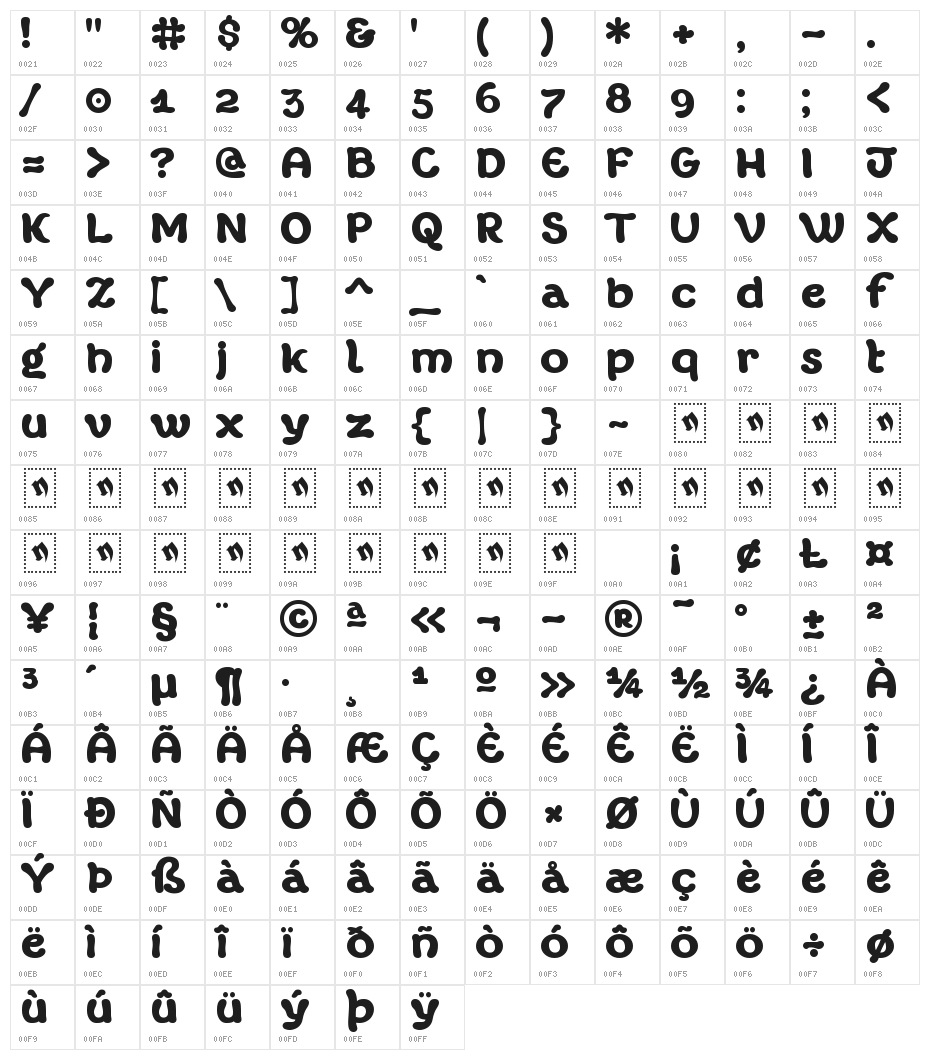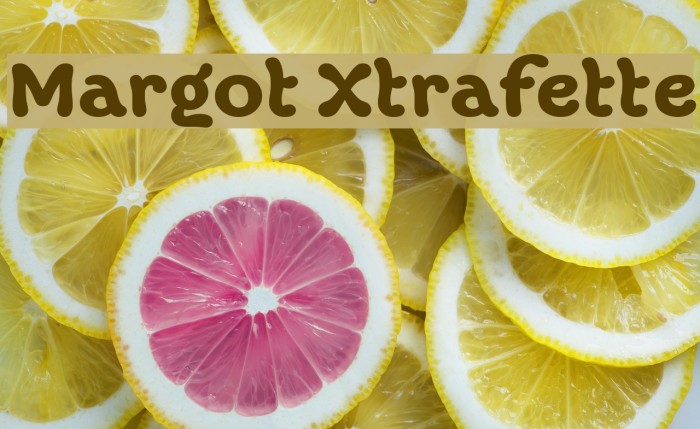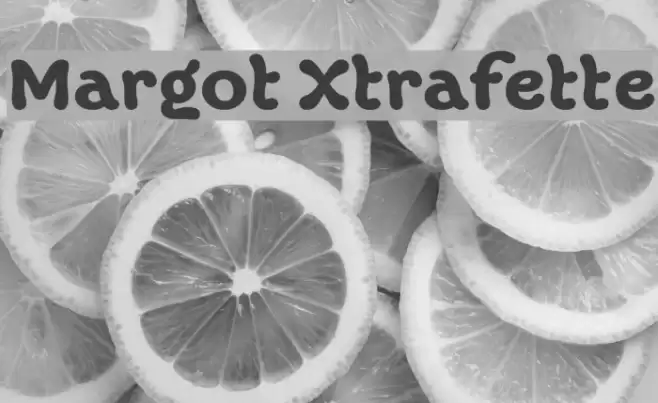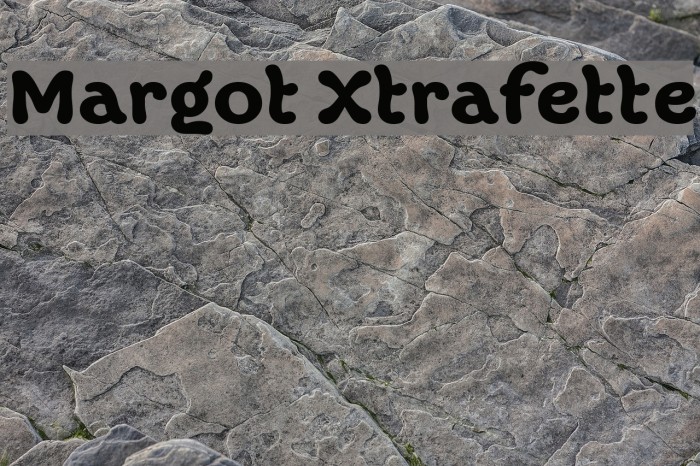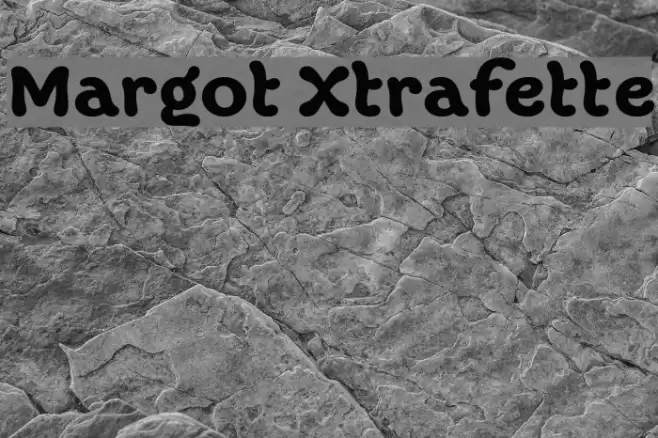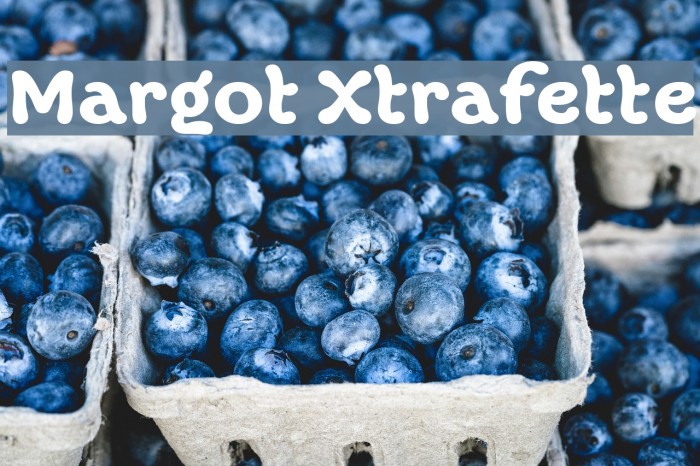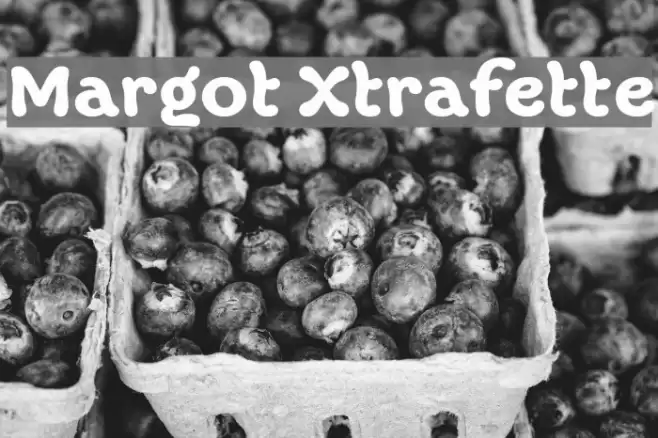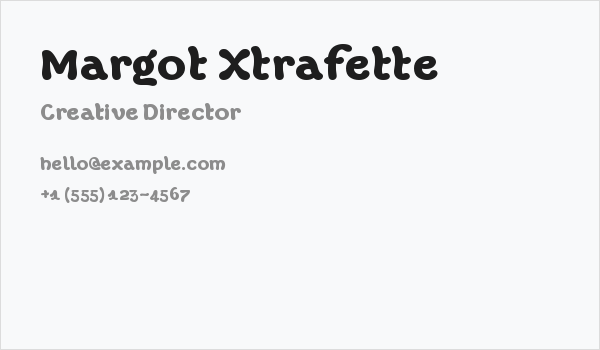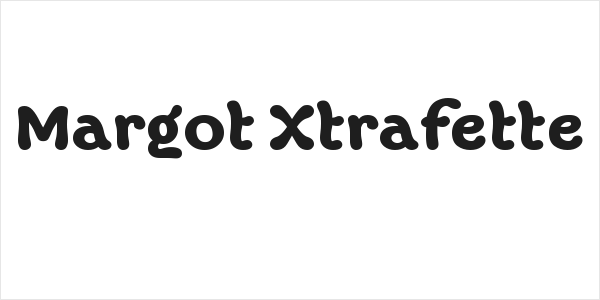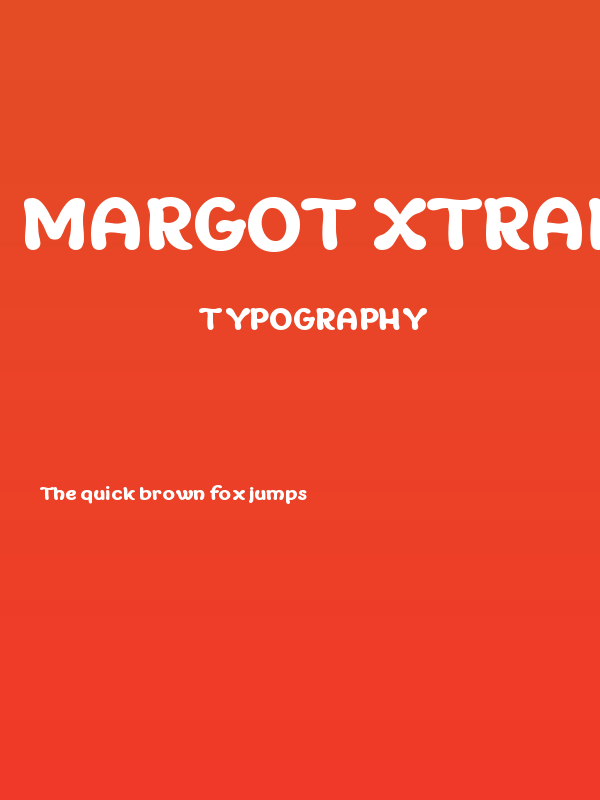
Margot Xtrafette Font
Margot Xtrafette Description
This font features a playful and bold style with rounded, bubbly characters that convey a sense of fun and approachability. The letters are thick and have a consistent stroke width, giving them a uniform appearance. The rounded edges and soft curves create a friendly and informal look, making it ideal for projects that aim to be inviting and engaging. The numbers and special characters maintain the same playful aesthetic, ensuring consistency across all text elements.
| Proposed Projects | Ideal for children's books, playful branding, party invitations, and casual social media graphics. |